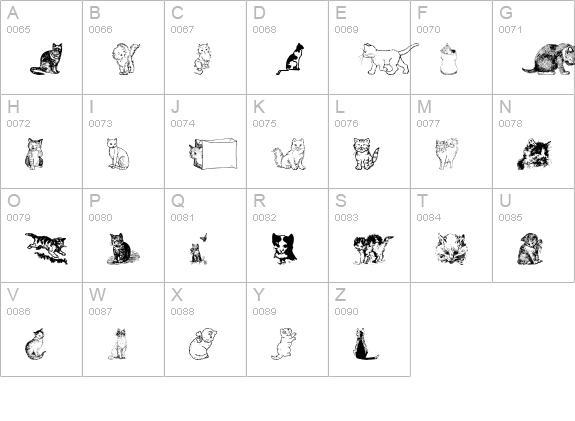
Kitty the Cat Font Details
Introducing Kitty the Cat font, a charming and playful typeface that will bring a touch of feline fun to all your design projects. This adorable font captures the essence of our favorite four-legged friends with its whimsical curves and cute paw prints. Kitty the Cat font is not only visually delightful, but it also boasts a wide range of characters, making it versatile for various design purposes. Whether you're designing a children's book cover, creating an eye-catching logo, or adding a touch of cuteness to your social media graphics, this font will effortlessly convey a sense of joy and playfulness. But what sets Kitty the Cat font apart from the rest is its availability. It is completely free to download at FontsMarket.com, making it accessible to all designers and creatives. You can now enjoy the purr-fect combination of style and affordability, without compromising on quality. With its unique and charming design, Kitty the Cat font is bound to make a lasting impression on your audience. So go ahead, let your imagination run wild and bring a touch of feline flair to your next project with this delightful font. Don't miss out on this opportunity to add a dash of whimsy to your design arsenal - download Kitty the Cat font for free at FontsMarket.com today!